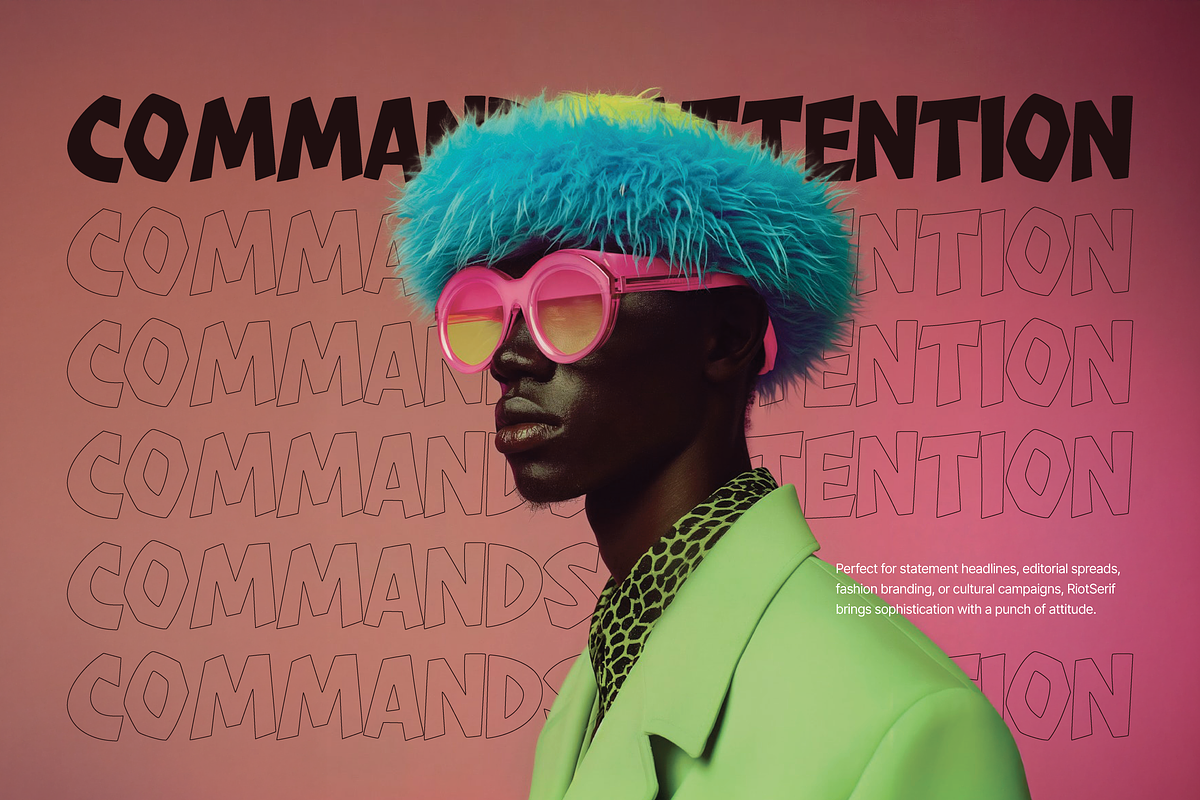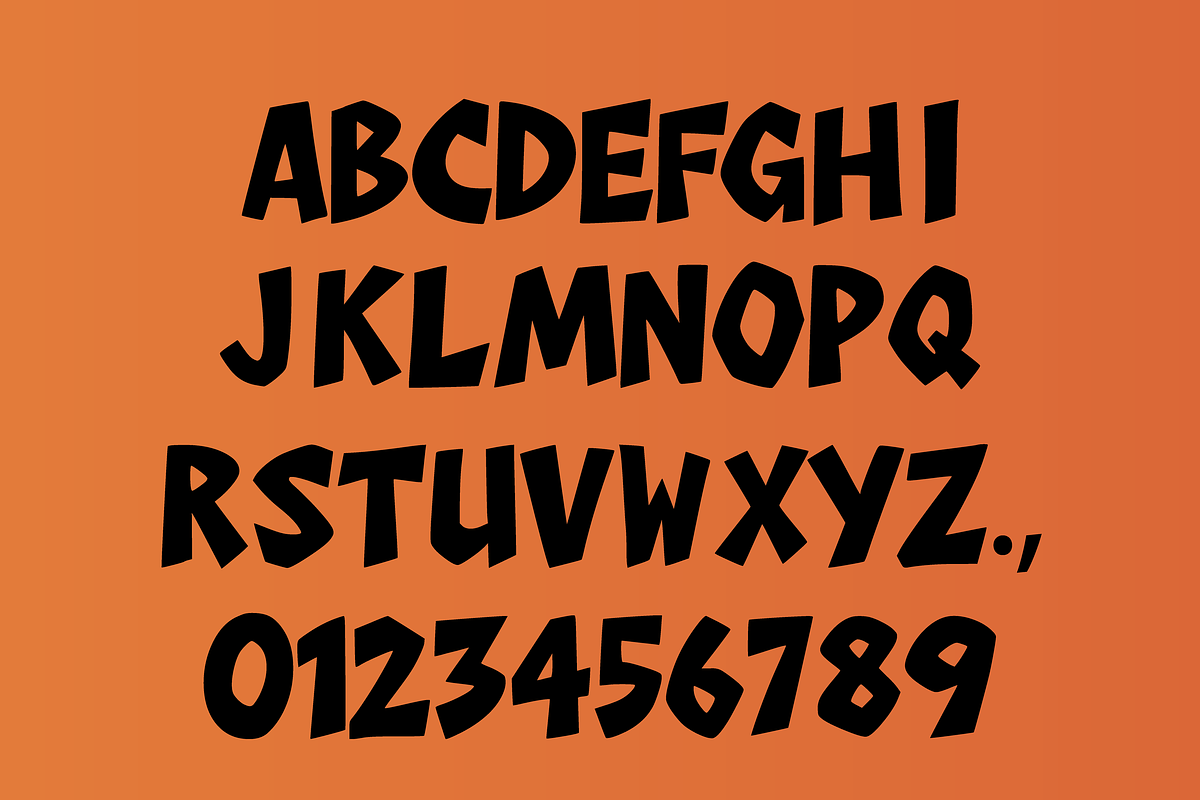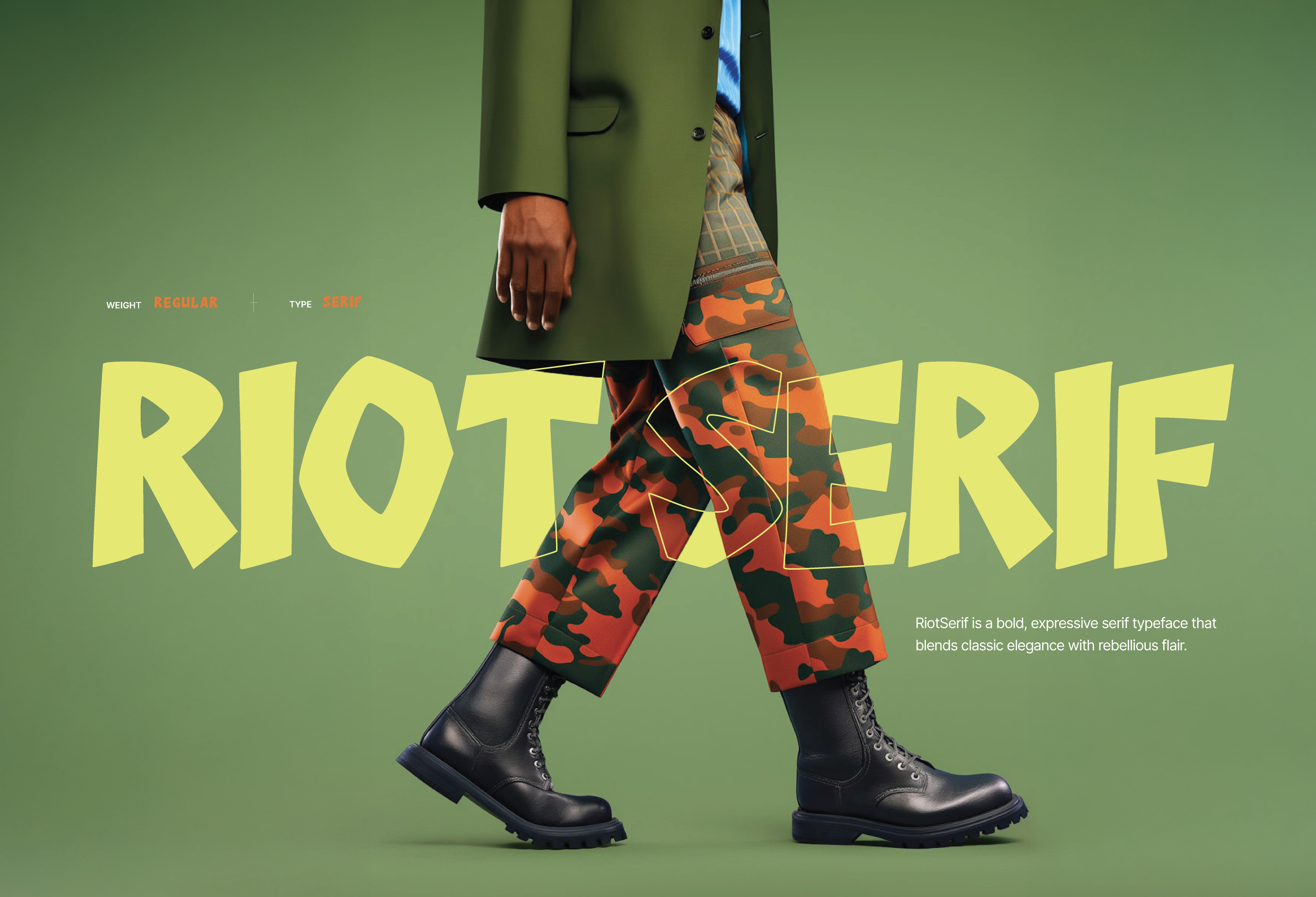
Riot Serif Font
RiotSerif is a bold, expressive serif typeface that blends classic elegance with rebellious flair. Inspired by signs, indie zines, and retro modernism, each character carries energy with sharp transitions, flared terminals, and sturdy contrast. Perfect for statement headlines, editorial spreads, fashion branding, or cultural campaigns, RiotSerif brings sophistication with a punch of attitude. Whether in print or digital, this font commands attention without ever shouting.